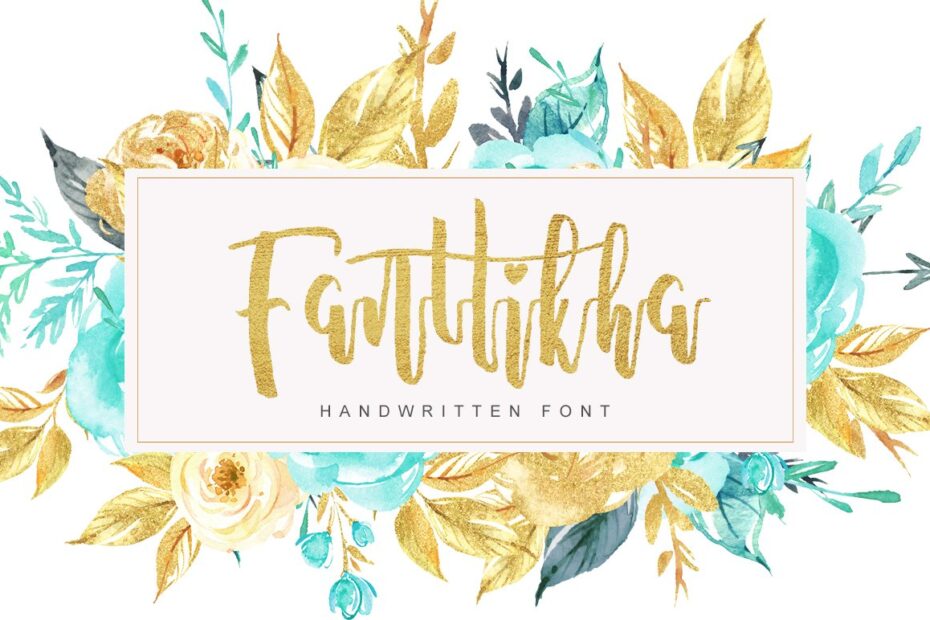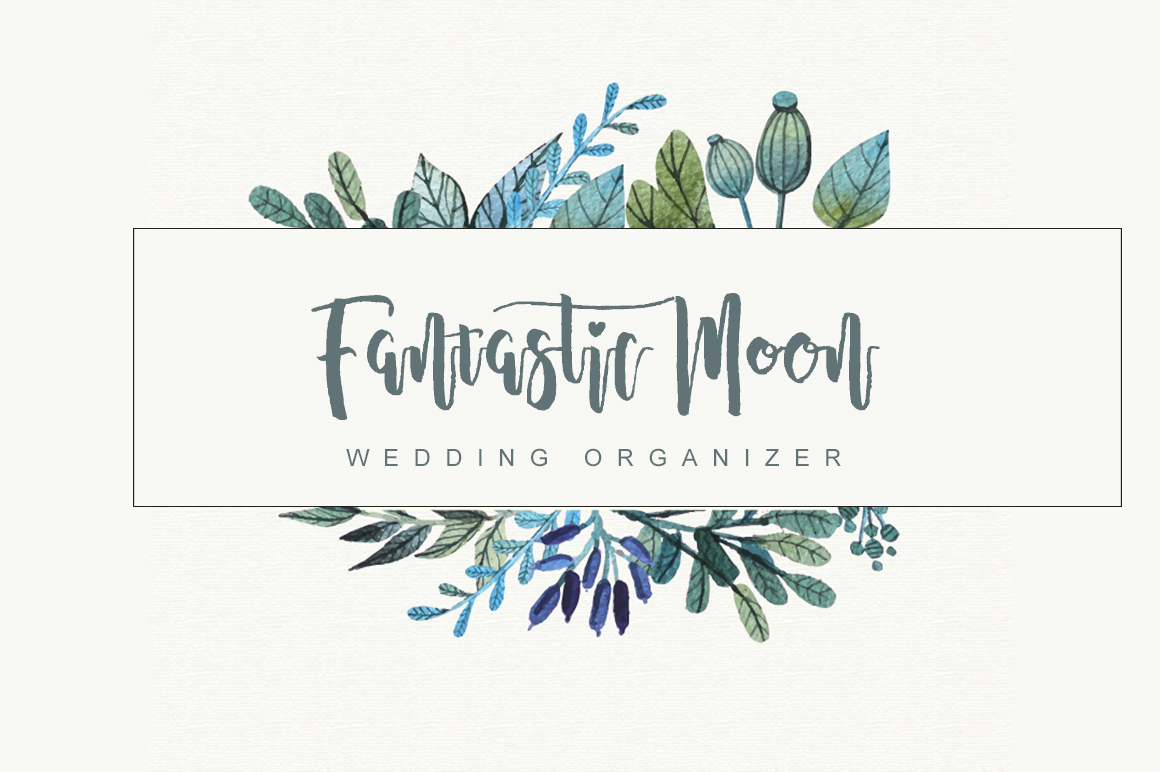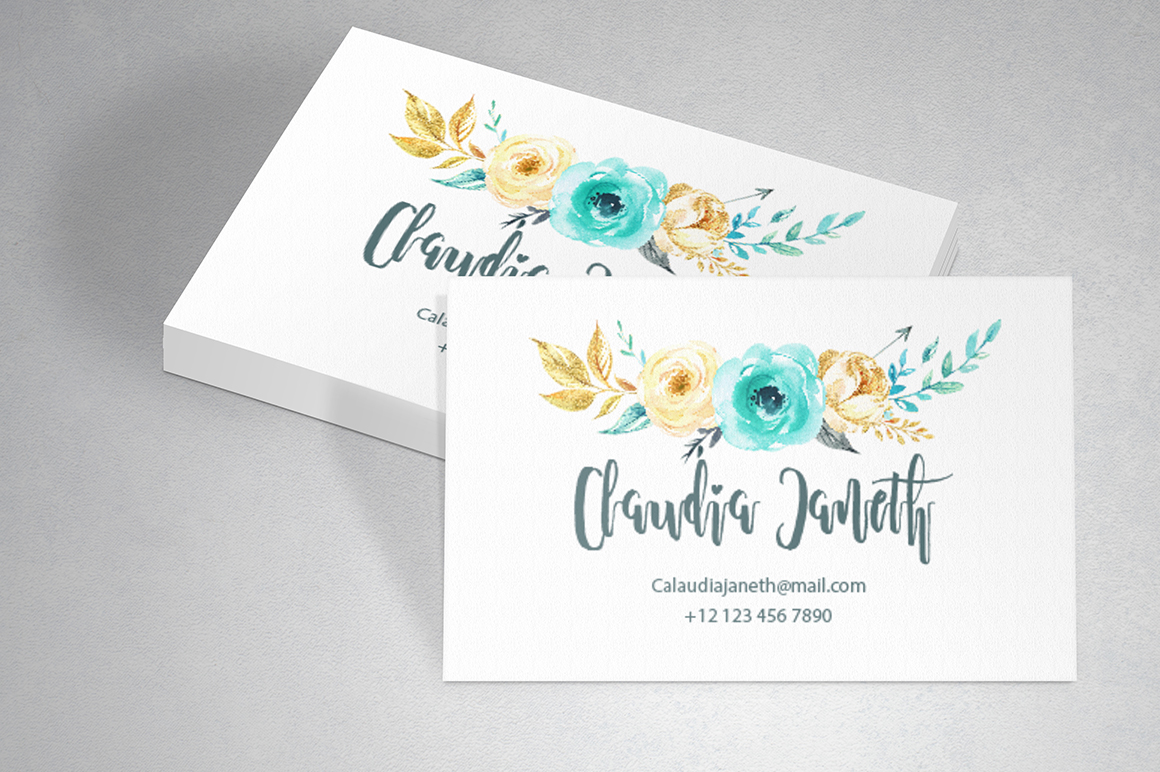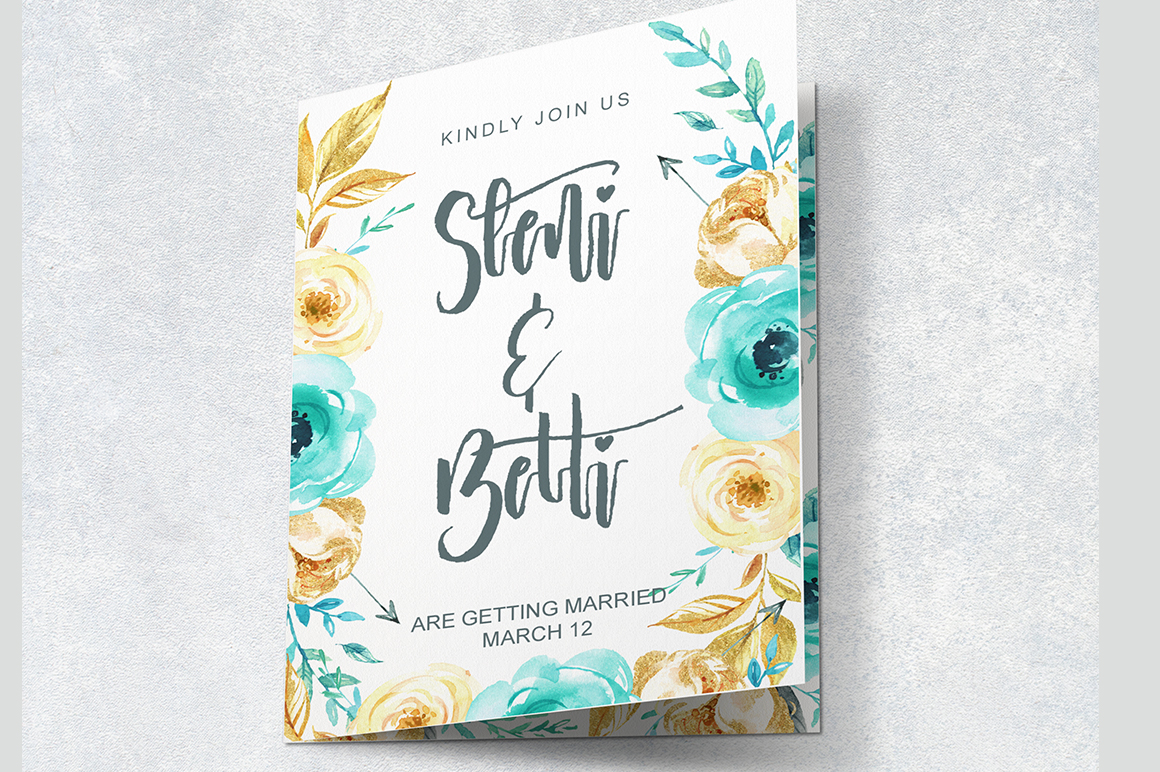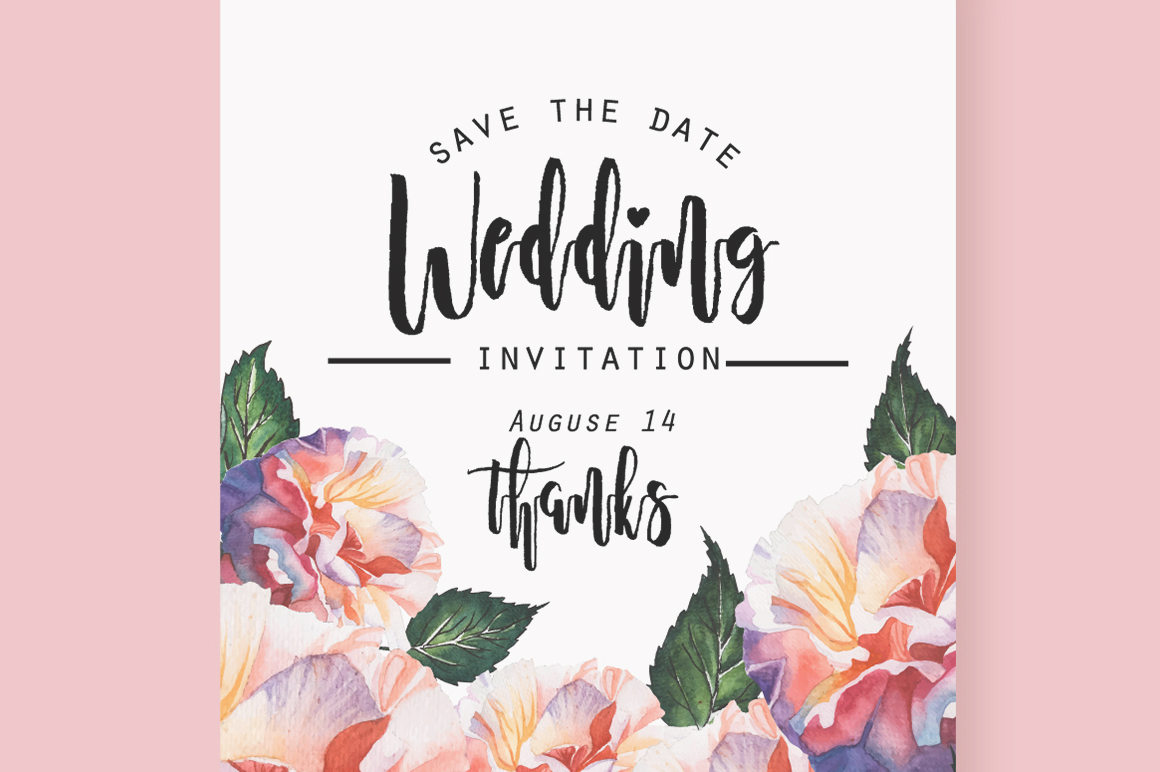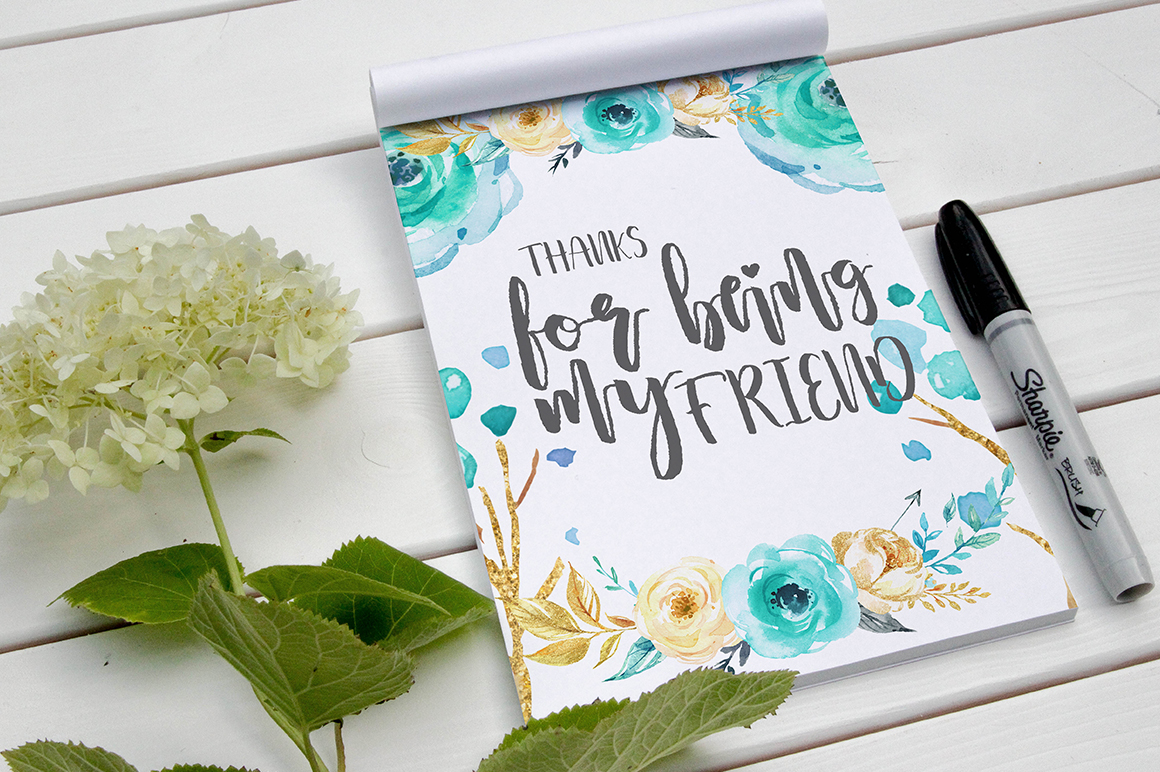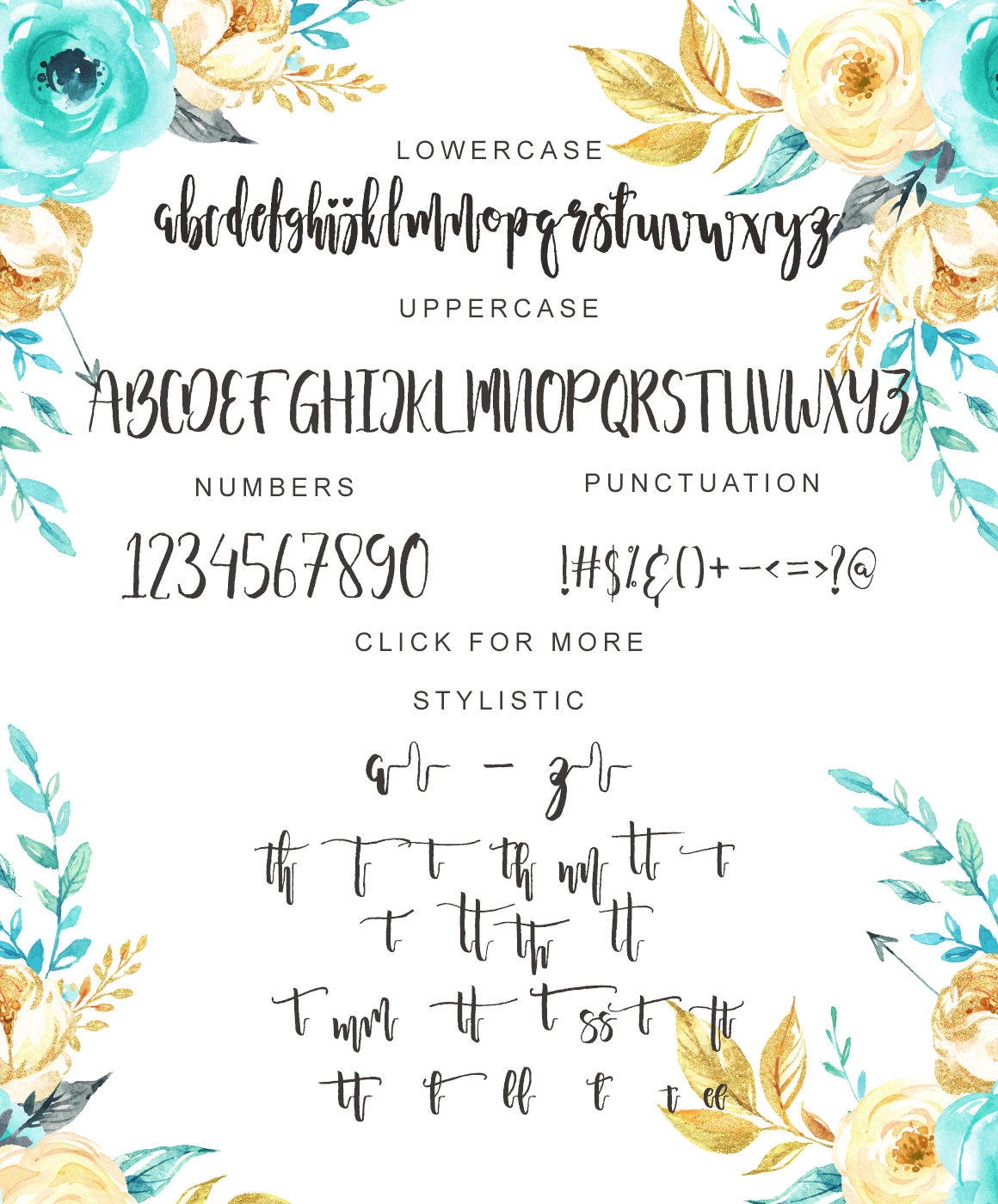
Unleashing Creativity with the Fanttikha Font
Have you ever been brainstorming a new design project, and the perfect font just slipped right out of your mind? You know, that one elusive piece that brings everything together? It’s moments like those when the right font can make all the difference. And that’s exactly where the Fanttikha Font comes in – a stunning handwritten script font that’s about to become your new best friend.
This beautifully crafted font is a masterful blend of classic calligraphy and modern-age design, making it the perfect addition to any project. Whether you’re a seasoned designer or just starting out, the Fanttikha Font is an invaluable tool that will elevate your work to the next level. With its unique character and versatility, it’s no wonder designers are falling in love with this font.
- Font Family: Fanttikha is a unique and elegant script font designed for various applications, including typography, branding, and design.
- Character Set: The font includes a wide range of characters, including uppercase and lowercase letters, numerals, punctuation marks, and special characters, making it suitable for various languages.
- Unique Characteristics: Fanttikha’s unique script style, with its flowing connections and elegant flourishes, makes it stand out from other fonts and adds a touch of sophistication to any design.
Fanttikha Font Review
Overall, I’m impressed with the Fanttikha font. ✨ Its unique blend of modern and traditional elements makes it stand out in a crowded market.
- The font’s bold lines and sharp edges give it a striking appearance, perfect for headlines and titles.
- Fanttikha is highly legible, even at smaller font sizes, making it suitable for body text.
- The font supports a wide range of languages, including Latin, Cyrillic, and Arabic scripts.
However, I do have some reservations. ⚠️ The font’s lack of italic and bold variations limits its versatility.
Limitsations:
- No italic or bold variations available.
- The font may not be suitable for very small or very large font sizes due to its complex design.
Despite its limitations, I believe Fanttikha is a solid choice for designers looking for a unique and stylish font. Its strengths far outweigh its weaknesses, making it a valuable addition to any design portfolio.
Use Fanttikha Font for creative projects, such as:
- Custom logos and branding materials.
- Artistic quotes and posters.
For best results, use Fanttikha Font in combination with other creative elements, such as bold colors, textures, and graphics.